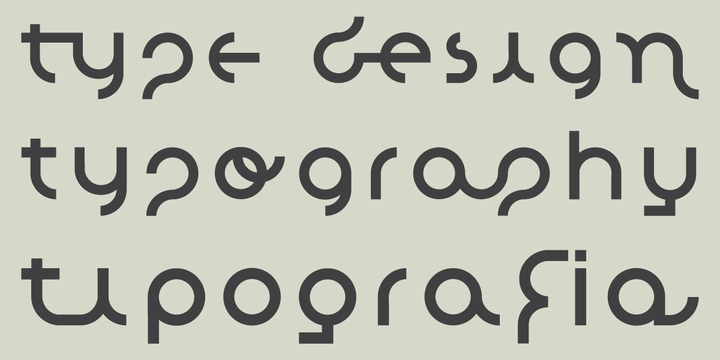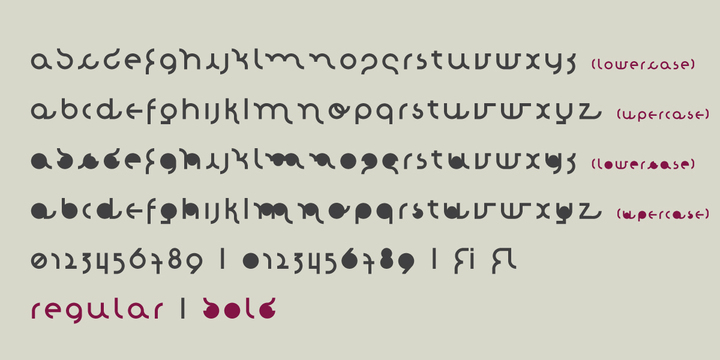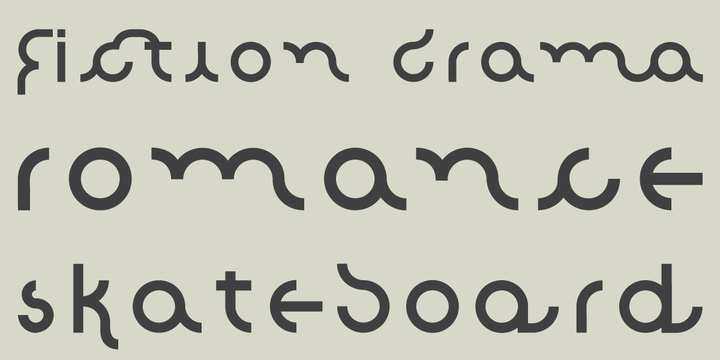
arnica is a display font family. This typeface has two styles and was published by Justi Design.
arnica is a display font based on a simple geometry that uses circles (and modules) as a structure. It is an experimental project where, in place of upercases, has alternate characters and swashes. furthermore, arnica has 50 discretionary ligatures which, when activated, give a totally different touch to the font and also has the bold weight, which reinforce the experimentalism of the project.
Combining lowercases with upercases, plus discretionary ligatures and bolds, you can write the same word in several different ways.
The character set offers more than 400 glyphs and support for many languages.